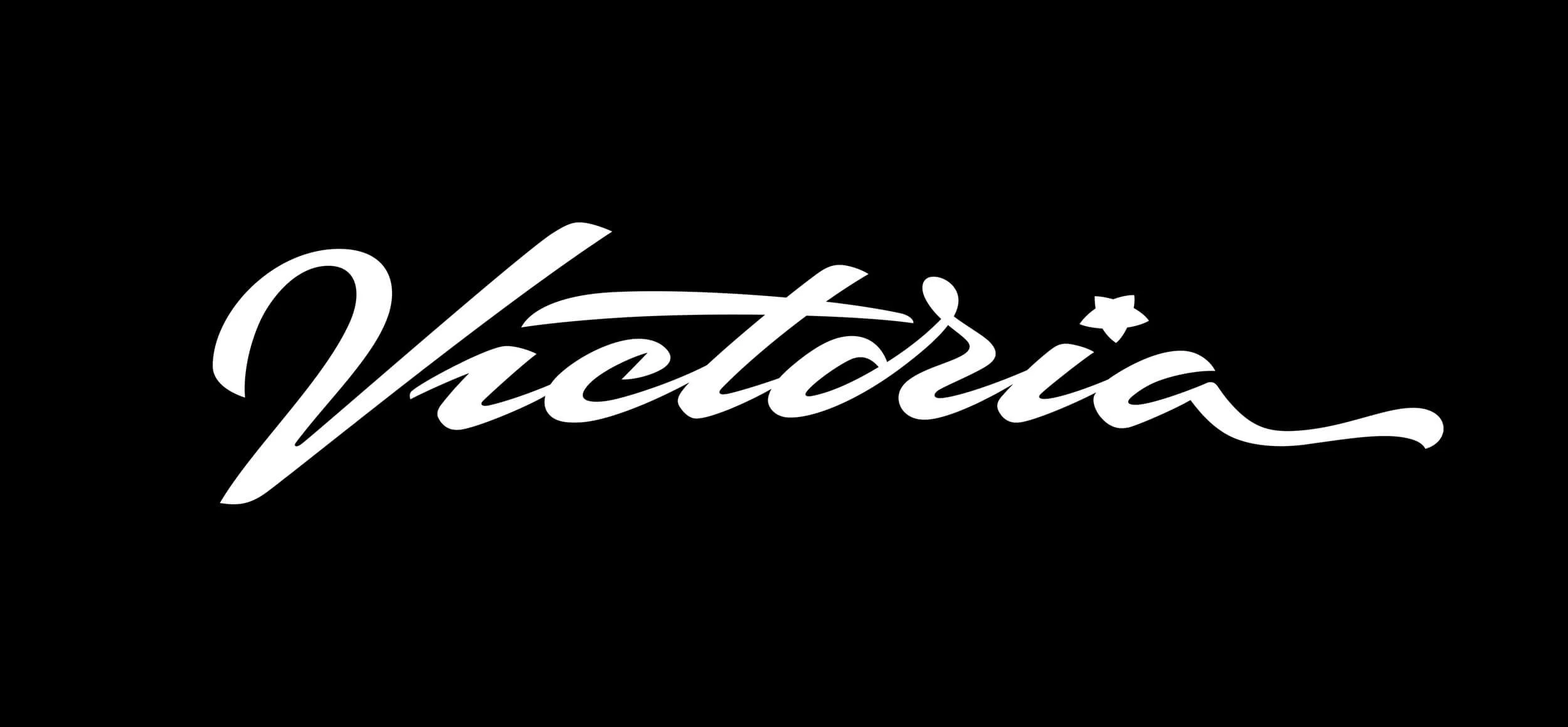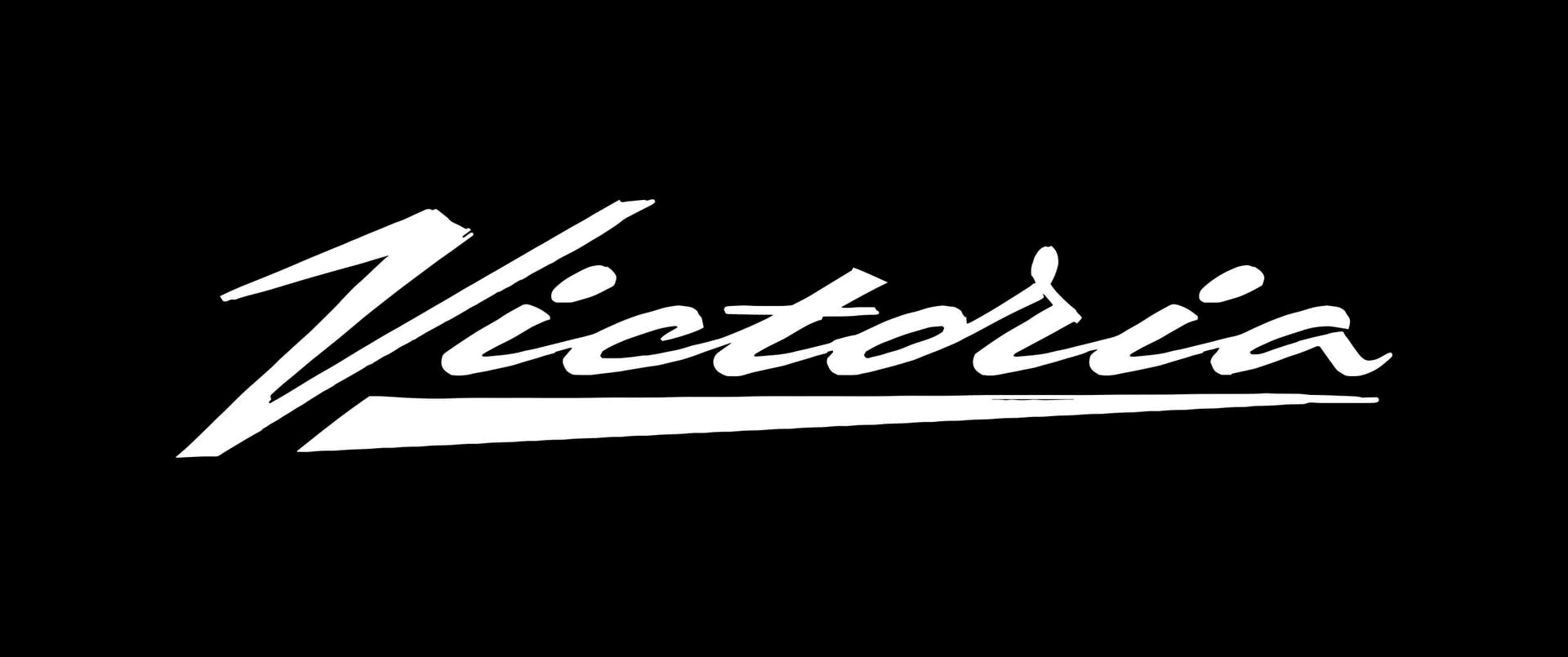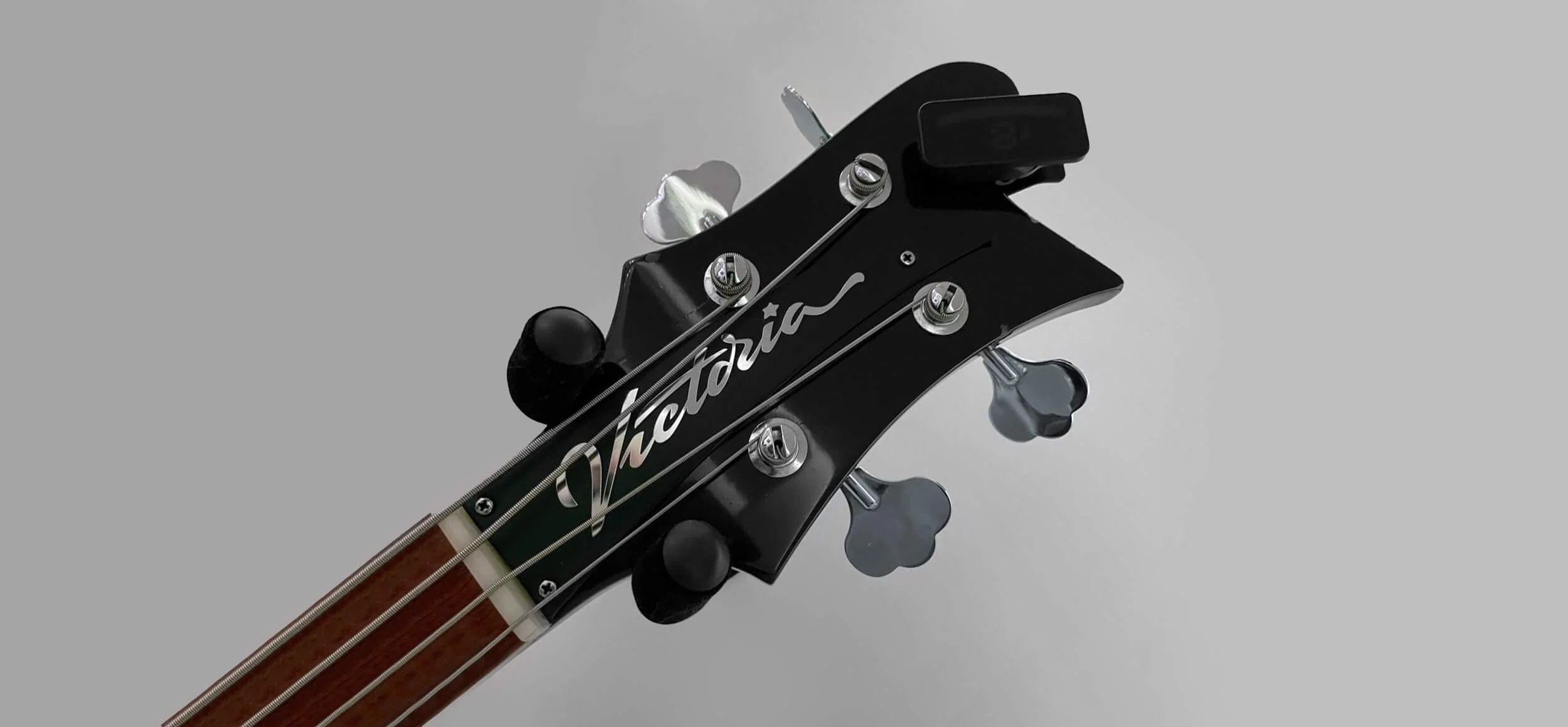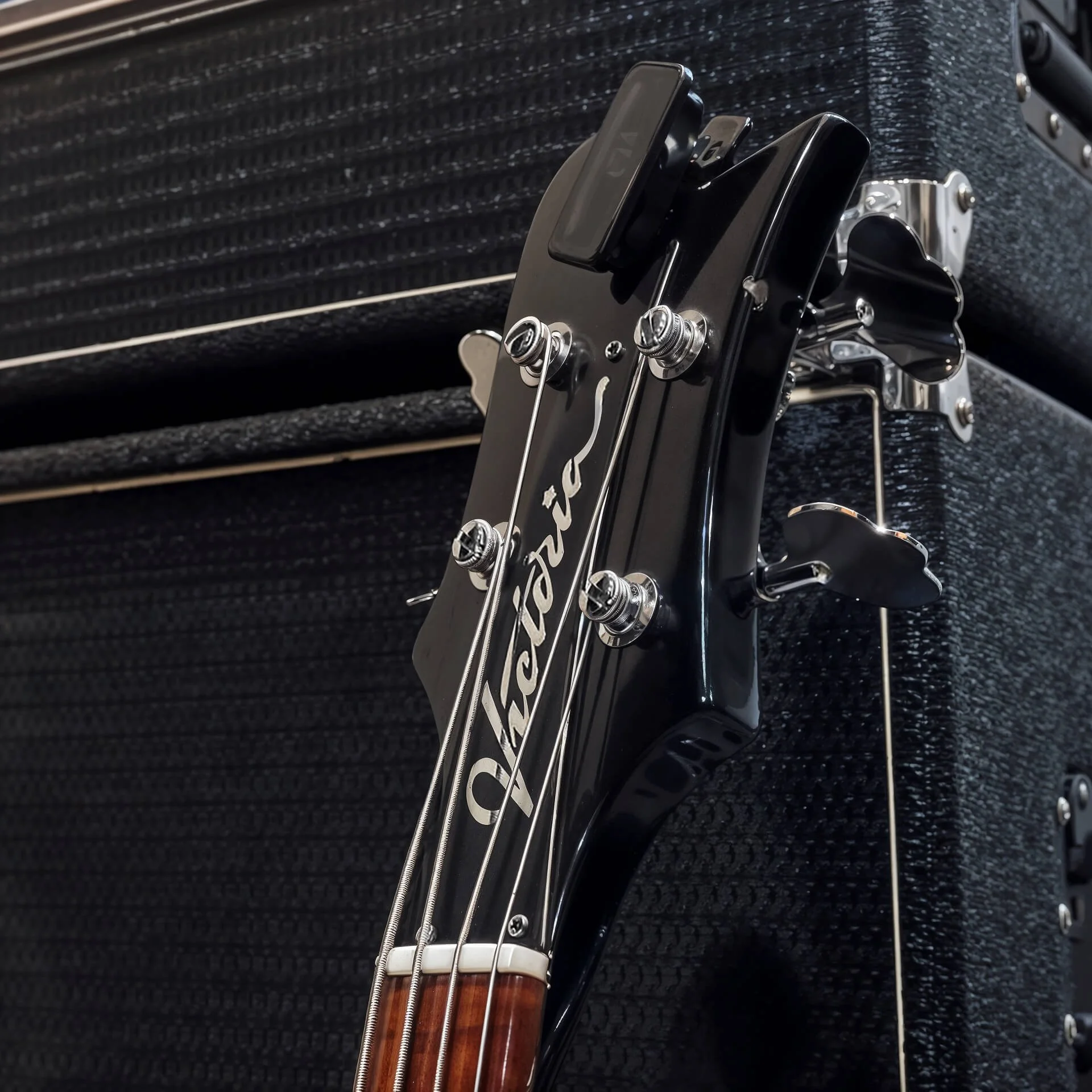
Custom Guitar logo
Lettering for a custom guitar pickguard. My client bought a Rickenbacker bass and asked me design it’s new personal name — Victoria. Inspired by oldstyle guitar and car logotypes
Lettering
Sketches